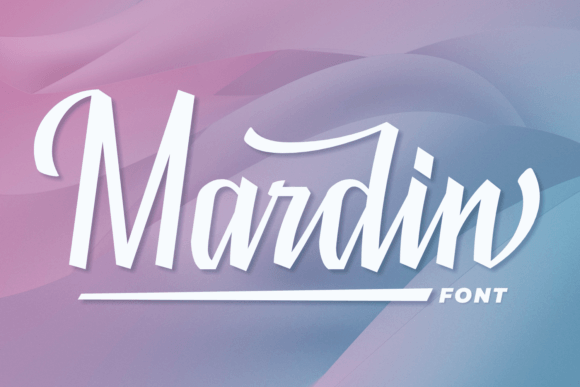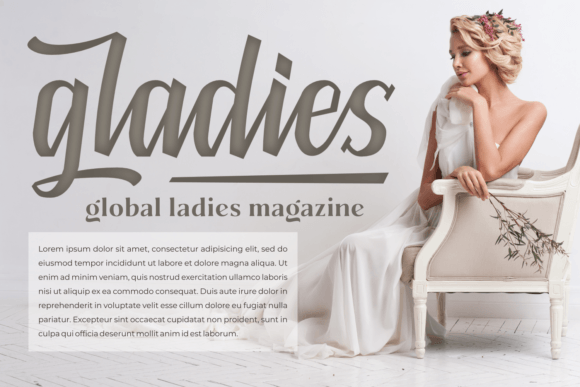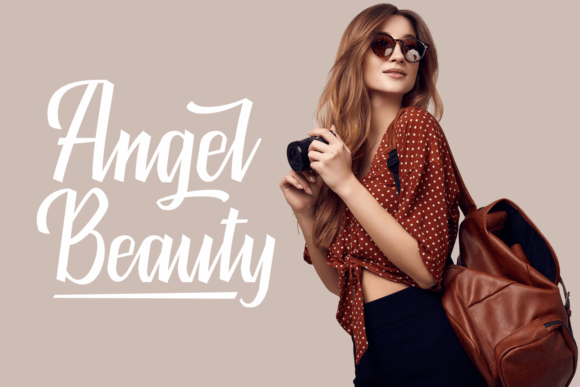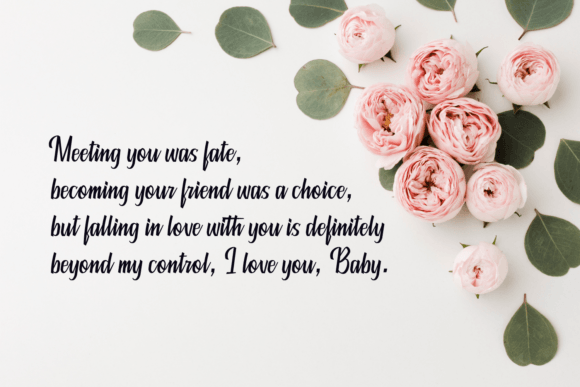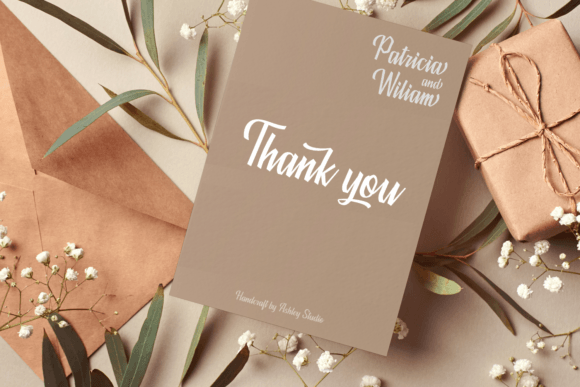
Mardin Font
About Mardin Font
Mardin, a charming and readable handwritten font, adds a touch of elegance to your designs and crafts. With its beautiful and clean lines, this font is crafted to elevate various projects, ranging from cards and invitations to magazines, logos, quotes, and more. The charm of Mardin lies in its versatility and readability, making it a delightful addition to your creative toolkit.
The bold and clean lines of Mardin make it suitable for a wide range of applications. Imagine it enhancing the beauty of a greeting card, where its readability and charm create a warm and inviting message. In invitations, Mardin becomes a stylish choice that sets the tone for special events with its elegant yet approachable script.
For magazines and logos, Mardin offers a distinctive and readable aesthetic, making it a font that stands out while maintaining a sense of sophistication. Its adaptability makes it well-suited for conveying quotes or memorable phrases, adding a touch of character to your typography.
The PUA encoding of Mardin enhances its functionality, providing easy access to all the glyphs and swashes. This feature allows you to personalize and customize your designs, ensuring that each project reflects your unique style and creative preferences.
In conclusion, Mardin is more than just a font; it’s a design tool that brings charm and readability to your creative projects. Whether you’re working on cards, invitations, magazines, logos, or quotes, let Mardin be the handwritten font that adds a touch of elegance and character to your designs.